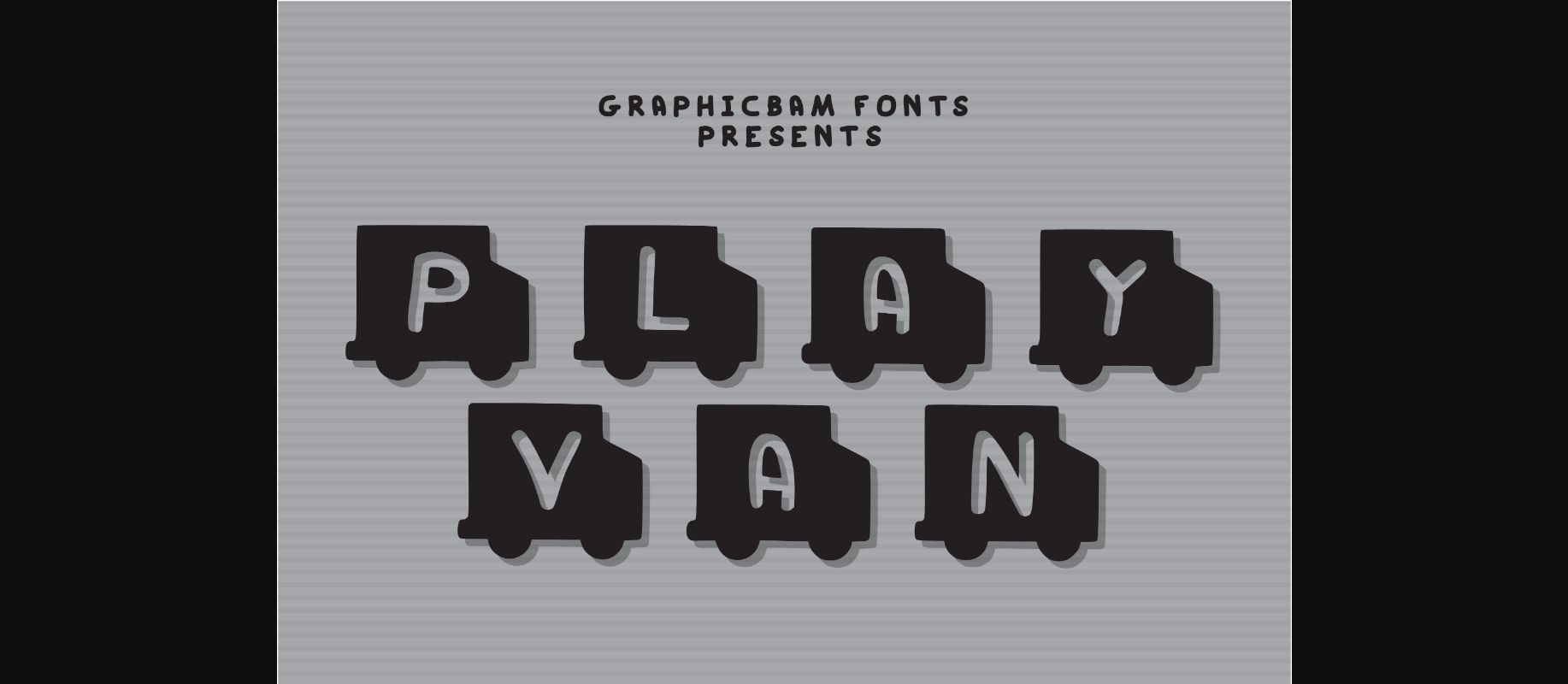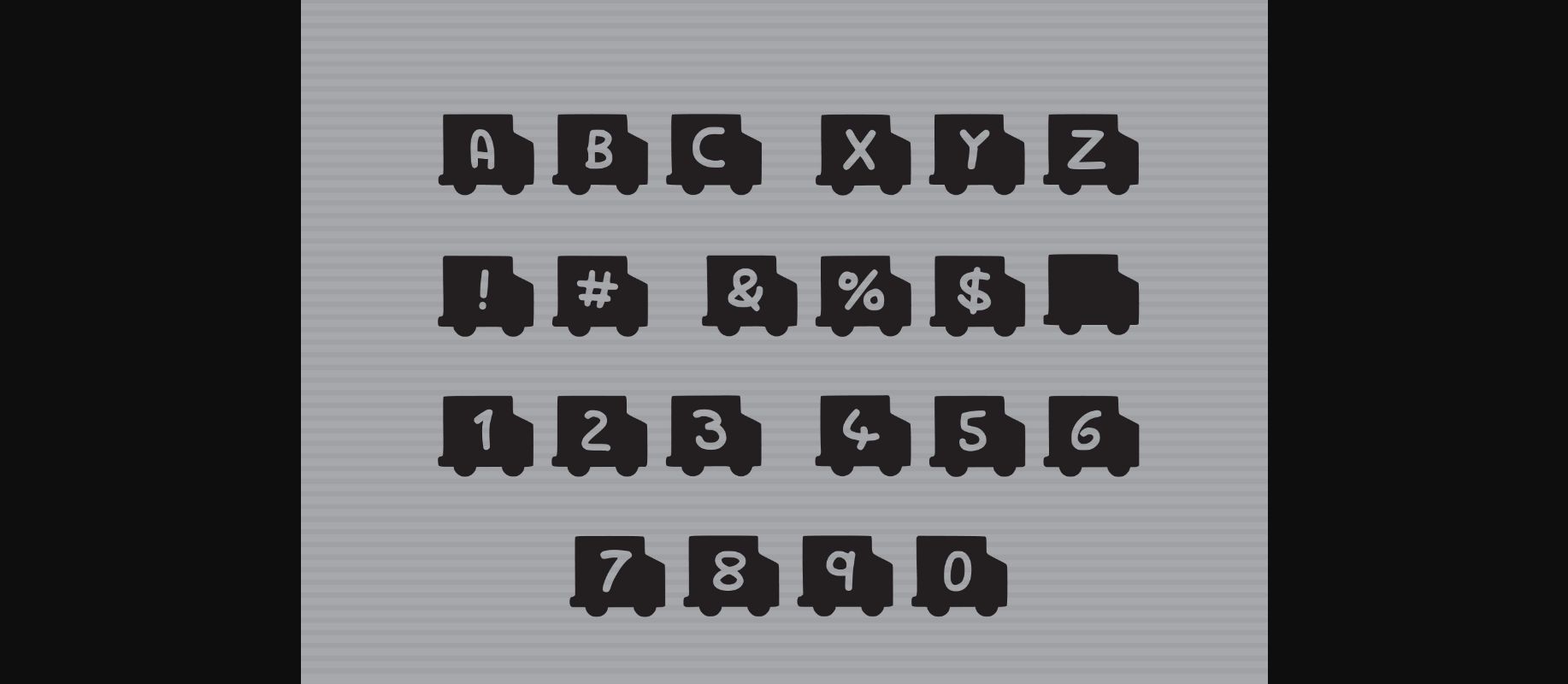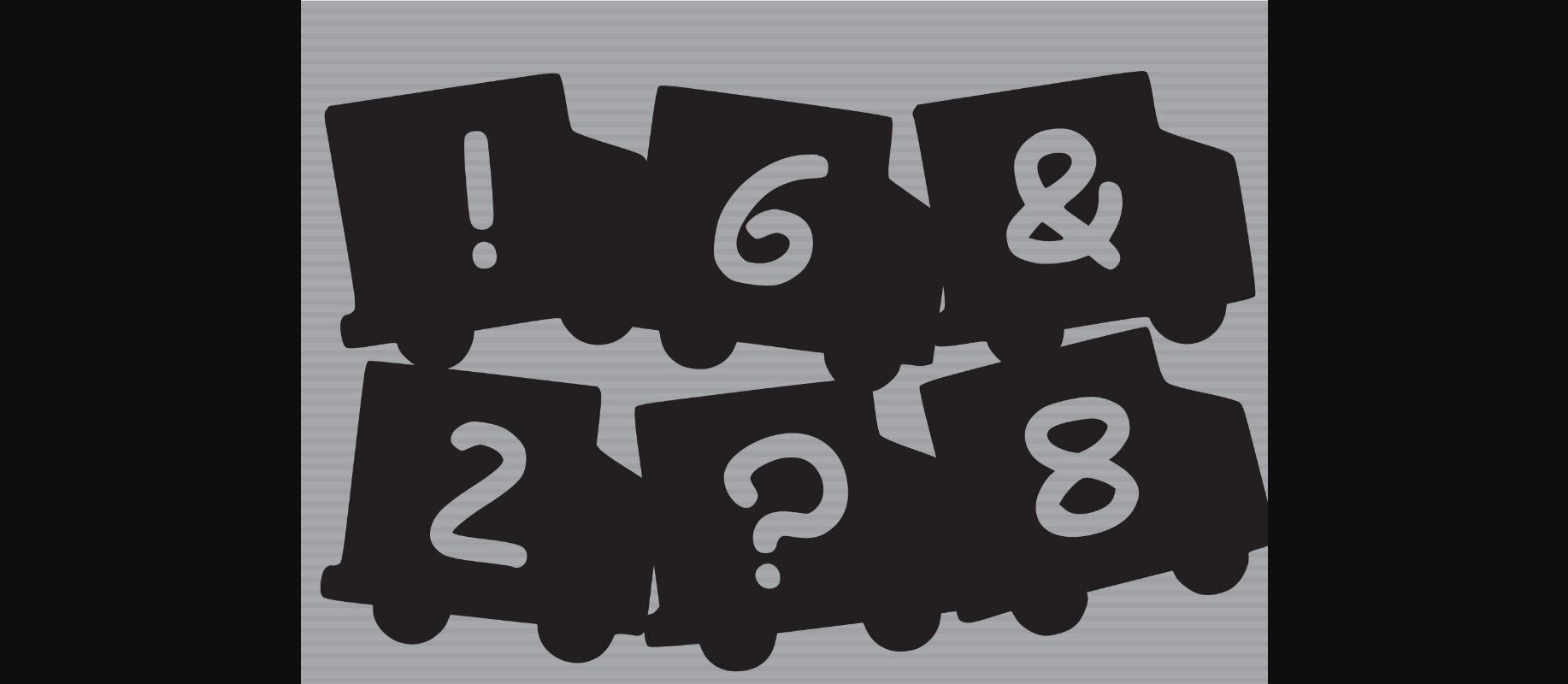
HomeDecorative FontsPlay Van Font Decorative Fonts Play Van Font FacebookXPinterestWhatsApp 1 of 5 ... Play Van Font Poster 2... Play Van Font Poster 3... Play Van Font Poster 4... Play Van Font Poster 5... About Play Van Font Play Van is a lovely decorative font, featuring a set of vans with a playful, child-like vibe. It embodies trendiness and authenticity and is the perfect choice for any children activity or school project. DOWNLOAD NOW People also explored Green Farmhouse Happy Father Day Font La Vilya Font Esther Font Japandi Font Winstonia Font Birthday Valentine Font Nuvella Font Phenom Extra Bold Font 312 0 TagsPlay Van Font Previous articlePlay Top Hat FontNext articleIffection Font LEAVE A REPLY Cancel reply Comment: Please enter your comment! Name:* Please enter your name here Email:* You have entered an incorrect email address! Please enter your email address here Website: Save my name, email, and website in this browser for the next time I comment. Personal Use Free Stronger Personal Use Free Read more about this font Wintersoul Personal Use Free Read more about this font Screengem Personal Use Free Read more about this font Broodfath Personal Use Free Read more about this font BLOG Fonts That Capture the Spirit of New York City New York City is more than just a place—it’s an experience, a rhythm, a visual language... To increase your work productivity, choose the most readable fonts. Transform Your Website: Elevate Your Typography with 7 Best Web Font Generators How to Cut Any Font on Cricut: Convert a Font to SVG (Free)